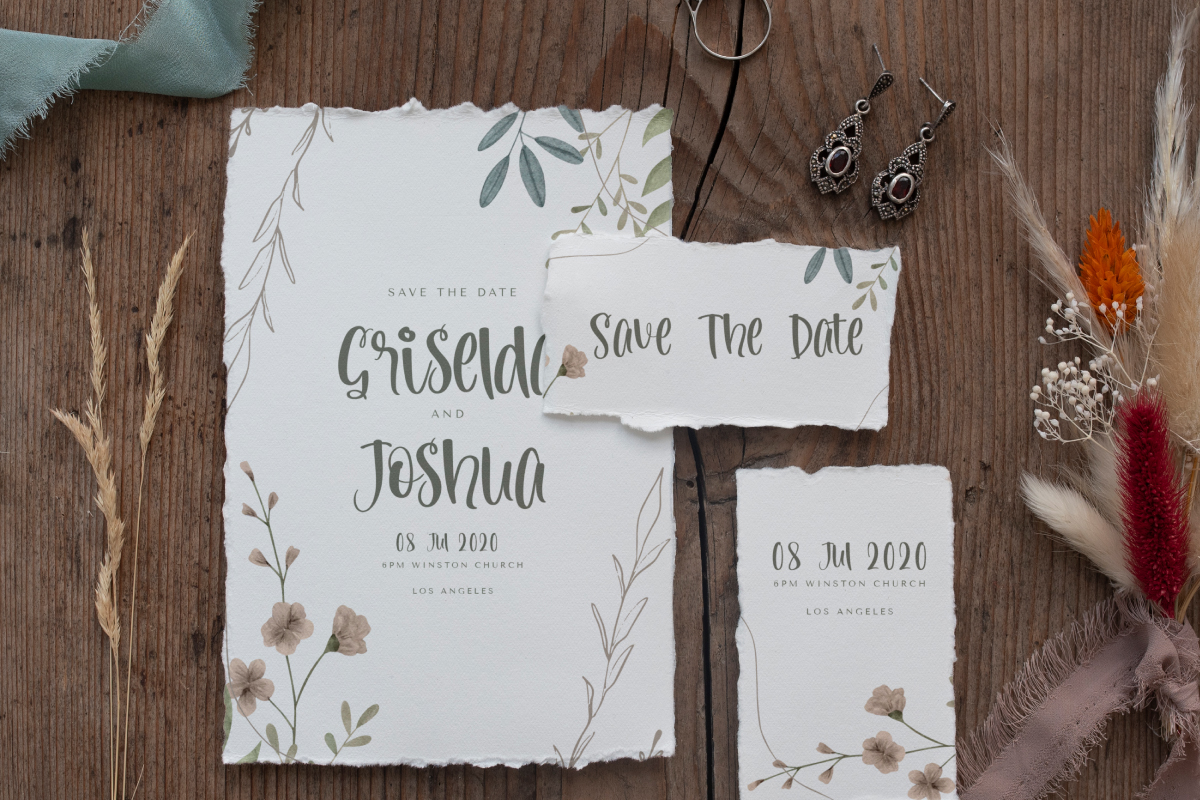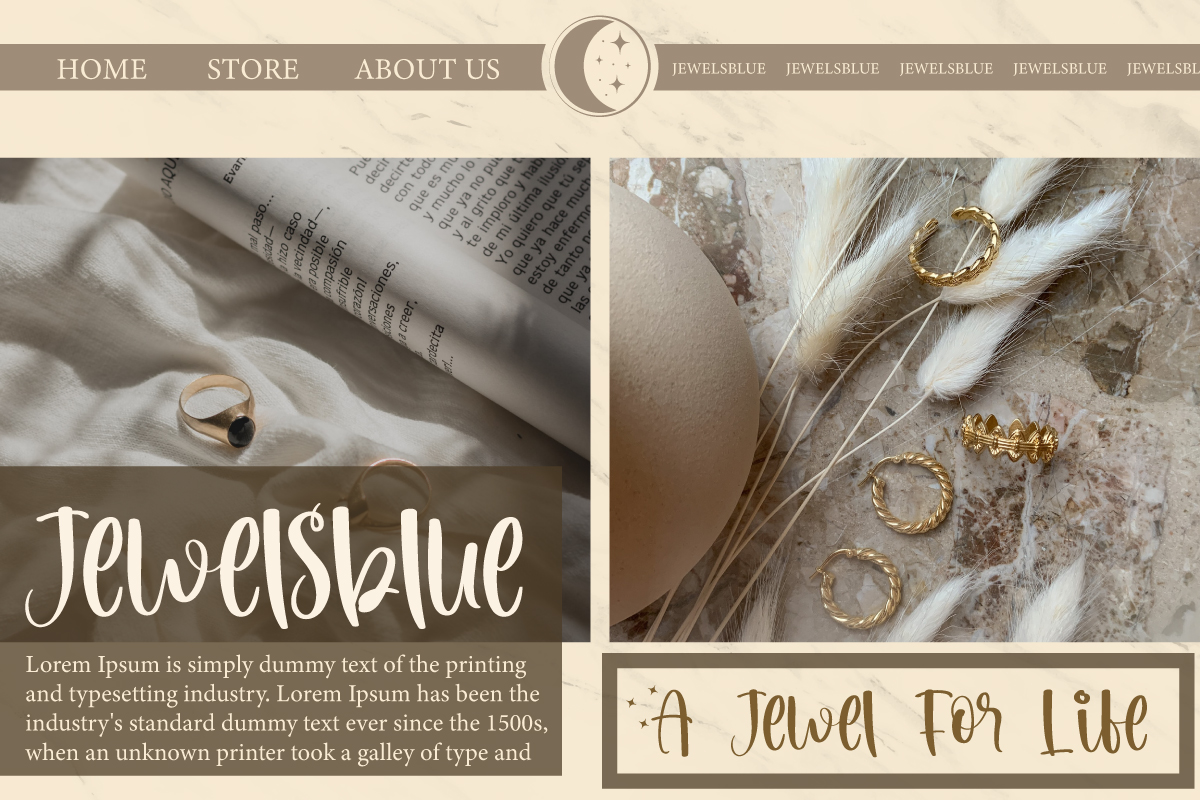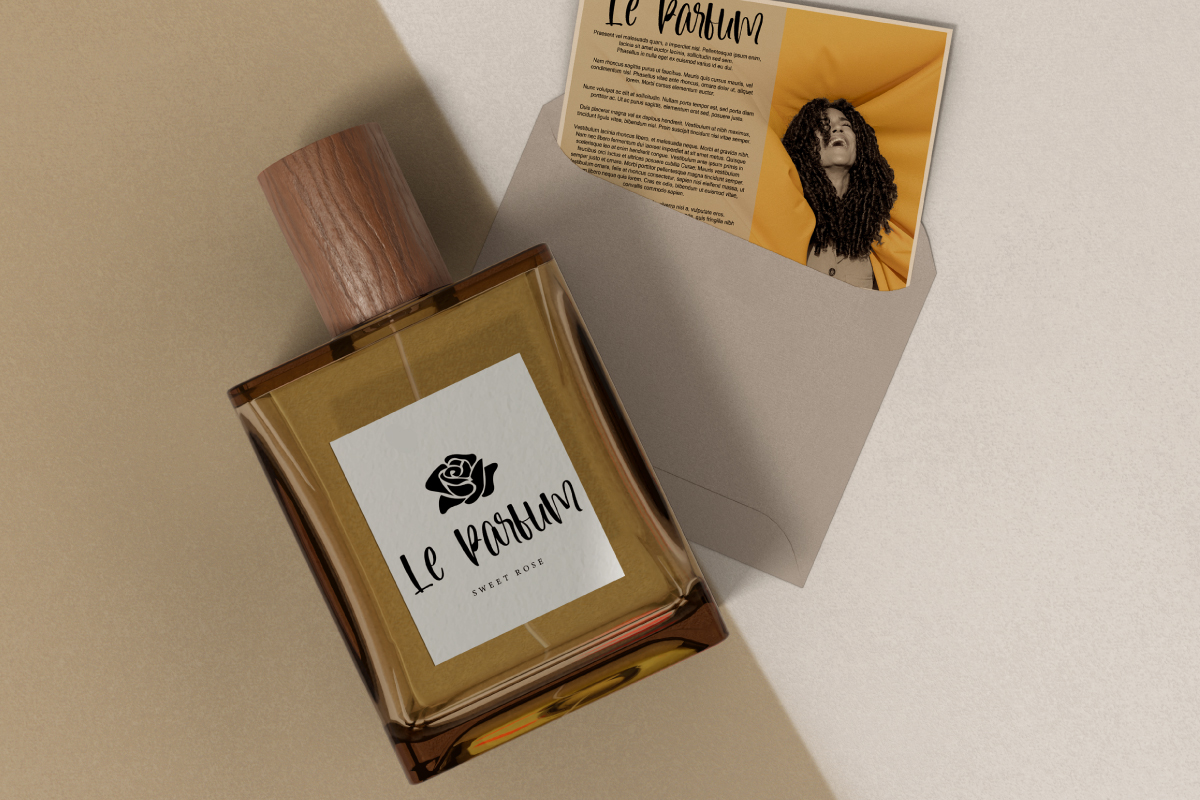
Sparkling Color Font
Sparkling Color Script Font
This is a stylish handwritten font with awesome spark effect and make it stand out, created by EdricStudio. Almost all industries will be match for this typeface including: accessories, architect, clothes & fashion, craft, florist, homeware, jewelry, perfume, publishing, wedding organizer, and more!
Sparkling Color Font comes with a full set of Uppercase and Lowercase Basic Characters, Number, large range of Punctuation and Symbol, Ligature, and Swoosh. It has a stunning characters set, perfectly managed with well spaced and kerning. Sparkling Color Font will be great for any projects (with extended license) including: blog header, invitation, label, magazine, product packaging, stationery, title, etc.